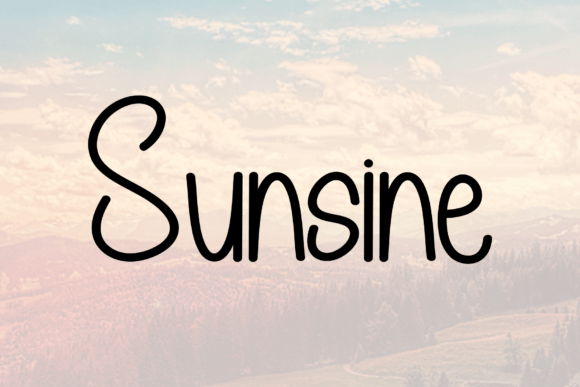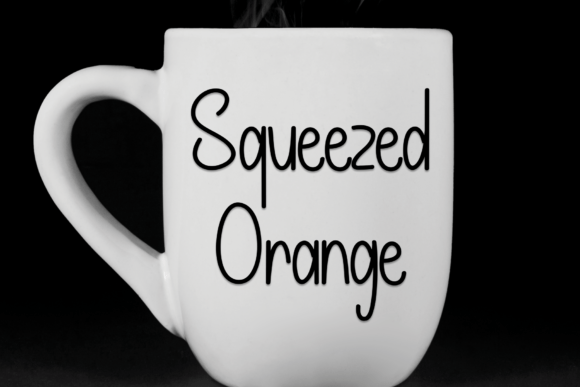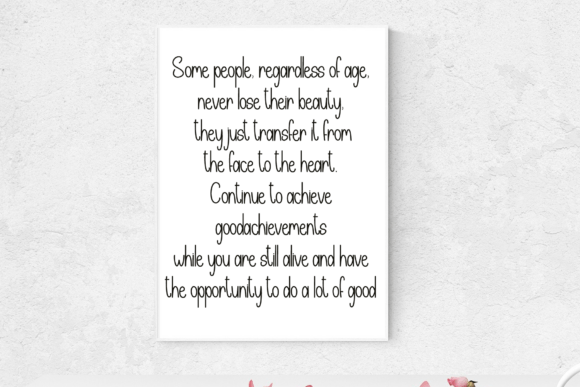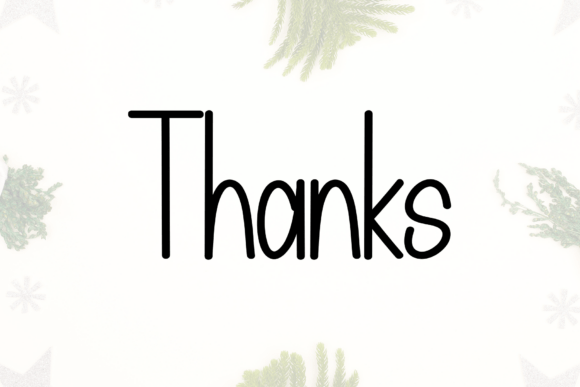
Introducing Autumnday Font: Add a Cozy Accent to Your Designs
Are you looking for a font that can add a touch of warmth and coziness to your design projects? Look no further than Autumnday Font! This sweet and beautiful handwritten font is perfect for designers and crafters who want to create stunning visuals that evoke the feeling of a crisp autumn day.
What Makes Autumnday Font Special?
Autumnday Font features characters that dance along the baseline, giving it a playful and whimsical feel. The font’s handwritten style is perfect for creating designs that feel personal and approachable. Whether you’re working on a project for a client or creating something for your own brand, Autumnday Font is sure to add a touch of personality to your design.
Autumnday Font is versatile and can be used for a wide range of design projects, including:
- Blog and website design
Why Choose Autumnday Font?
There are many fonts available that claim to be perfect for design projects, but Autumnday Font stands out from the crowd. Here are just a few reasons why:
- Unique and eye-catching: Autumnday Font has a distinctive style that’s sure to grab attention.
- Easy to read: Despite its playful style, Autumnday Font is easy to read, making it perfect for body text and headings.
- Highly versatile: Autumnday Font can be used for a wide range of design projects, from digital to print.
Tips for Using Autumnday Font
To get the most out of Autumnday Font, here are a few tips to keep in mind:
- Use it for headings and titles: Autumnday Font is perfect for adding a touch of personality to your headings and titles.
- Pair it with a sans-serif font: For body text, pair Autumnday Font with a clean sans-serif font to create a nice contrast.
- Experiment with colors: Autumnday Font looks great in a variety of colors, from rich autumnal tones to bright and bold hues.
Autumnday Font is a beautiful and versatile font that’s perfect for designers and crafters who want to add a touch of warmth and coziness to their design projects. With its unique and eye-catching style, Autumnday Font is sure to become a favorite in your font collection. So why wait? Download Autumnday Font today and start creating stunning designs that evoke the feeling of a crisp autumn day!